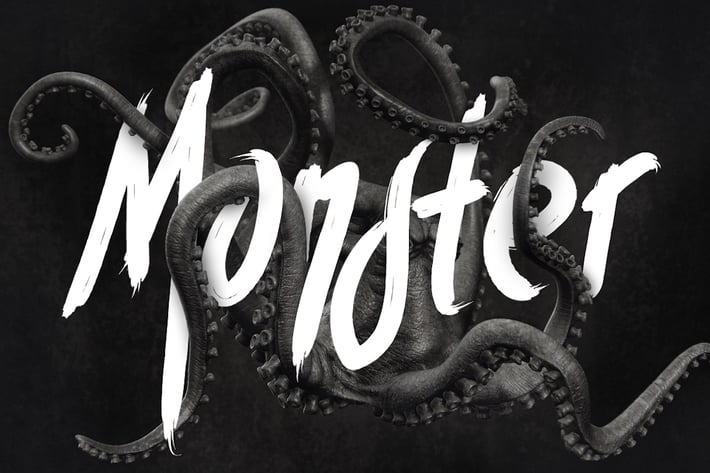
Constanta Brush Font Swashes
Give your designs an authentic brush handcrafted feel. Constanta Typeface is perfectly suited to stationery, logos and much more.